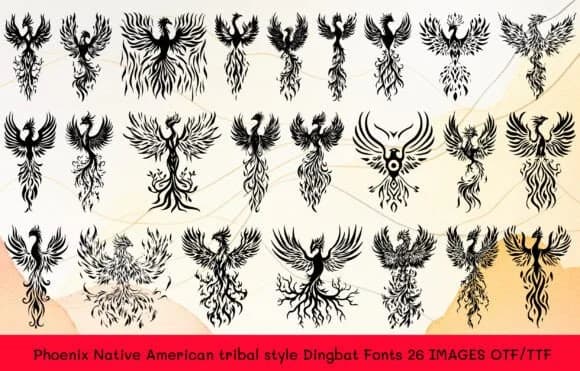
Each character in Phoenix Native American Tribal, created by designer MOMAT THIRTYONE, swaps letters for geometric tribal symbols and cultural patterns. The 26 glyphs draw from indigenous visual traditions, featuring strong angular lines and repeated motifs that feel authentically rooted in tribal artistry. This isn't generic symbolic filler; the designs carry the weight and intent of traditional forms.
This dingbat collection works wonderfully for Southwestern wedding invitations and ceremony programs where tribal aesthetics set the tone. Etsy product labels and boutique business cards benefit from the cultural authenticity these glyphs bring. Use them in textile design projects, indigenous art presentations, or hand-lettered craft signage that celebrates tribal heritage. The geometric strength of the characters makes them equally readable whether you're setting them small for decorative accents or large as focal design elements. Graphic designers working on Native American cultural projects, artisans creating handmade goods with tribal themes, and anyone building visual systems around indigenous design will find an immediate match with this font's approach.
Phoenix Native American Tribal Font is a versatile dingbats font that works for both headings and body text. Pair it with a contrasting sans-serif or serif font to add visual interest and a clear distinction between titles and body copy.